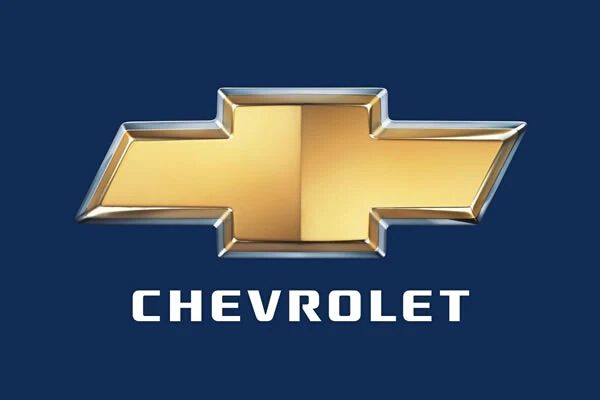
The name of the Chevrolet font that looks closest to the one used in the logo for this famous American car company is a typeface called Prototype. It was designed and created by the well known font author Justin Callaghan. The current version for this typeface is V2.0 and was released to the general public in February of 2001.
Prototype is a sans-serif font looks very much like the official Chevrolet logo. The Protoype font contains soft, round, clean lines just like the Chevrolet font. Most of the individual letters in this font appear to be an exact match with the Chevrolet font, however the letter R does appear to be a little bit different compared to the original.
Below is a preview image of the character map for this font, demonstrating all of the individual char glyphs as well as the different font sizes that it comes with: